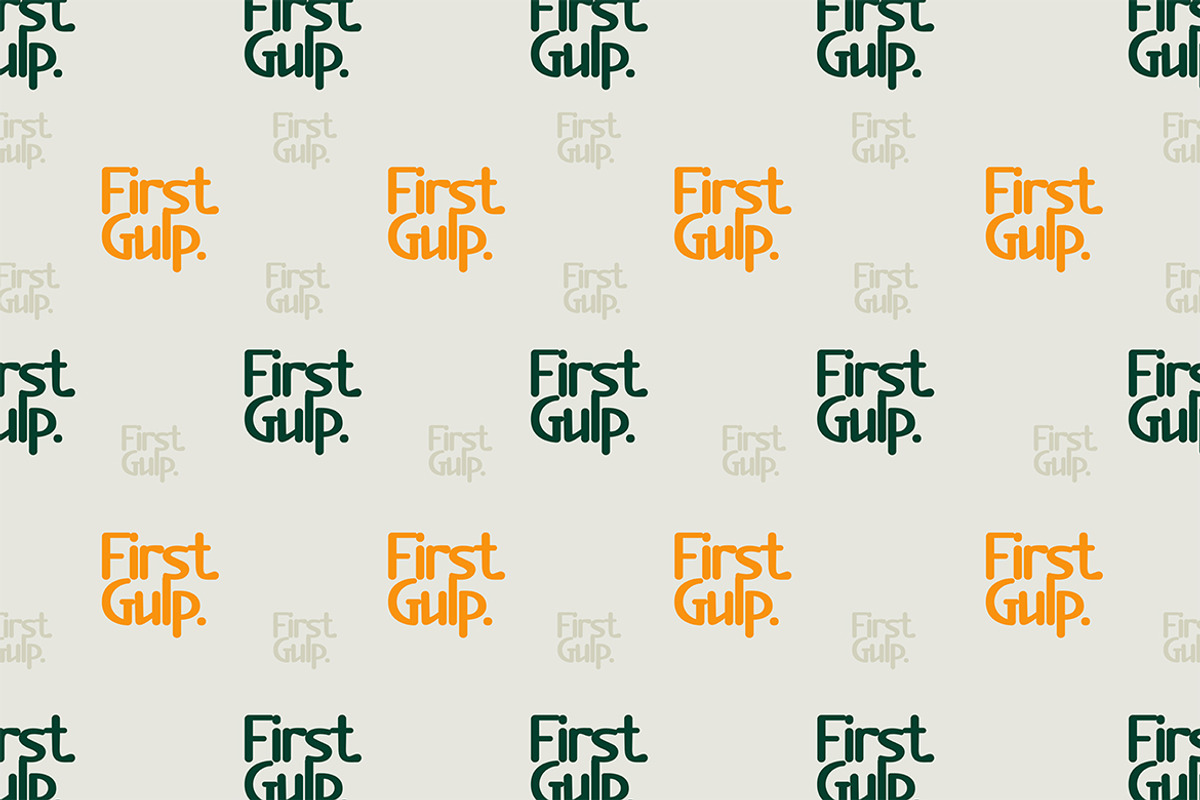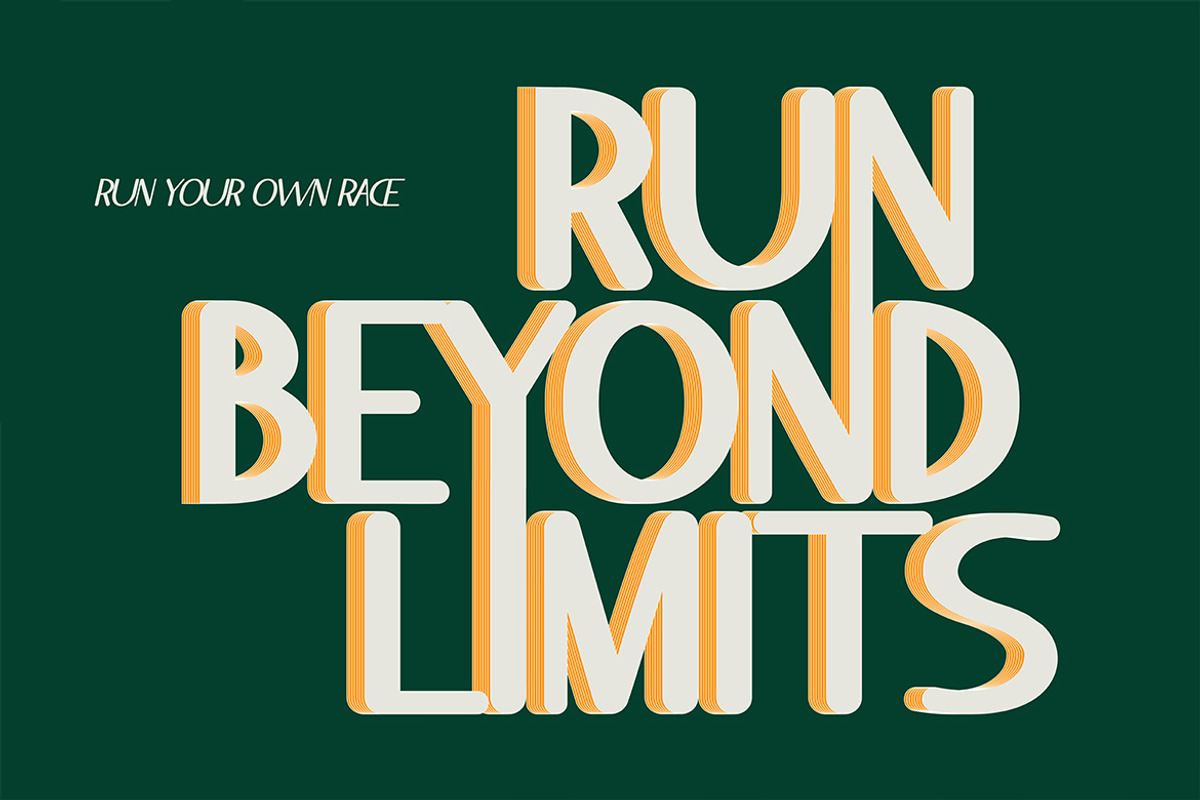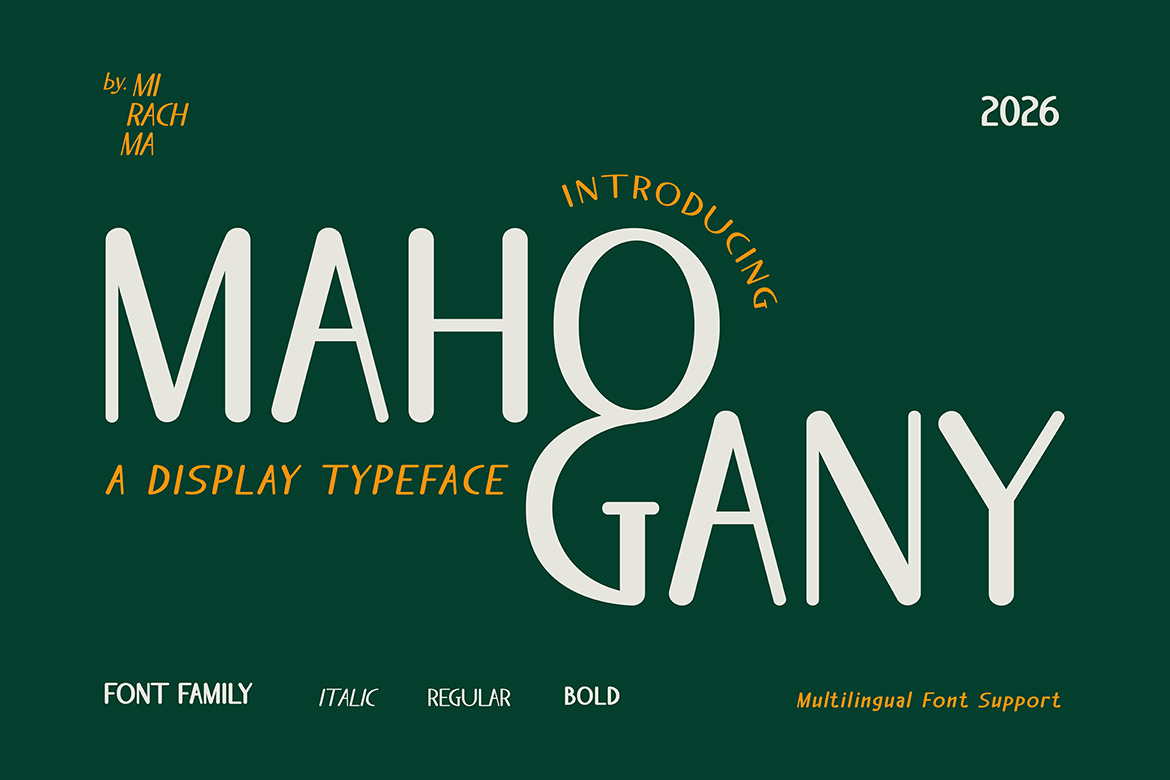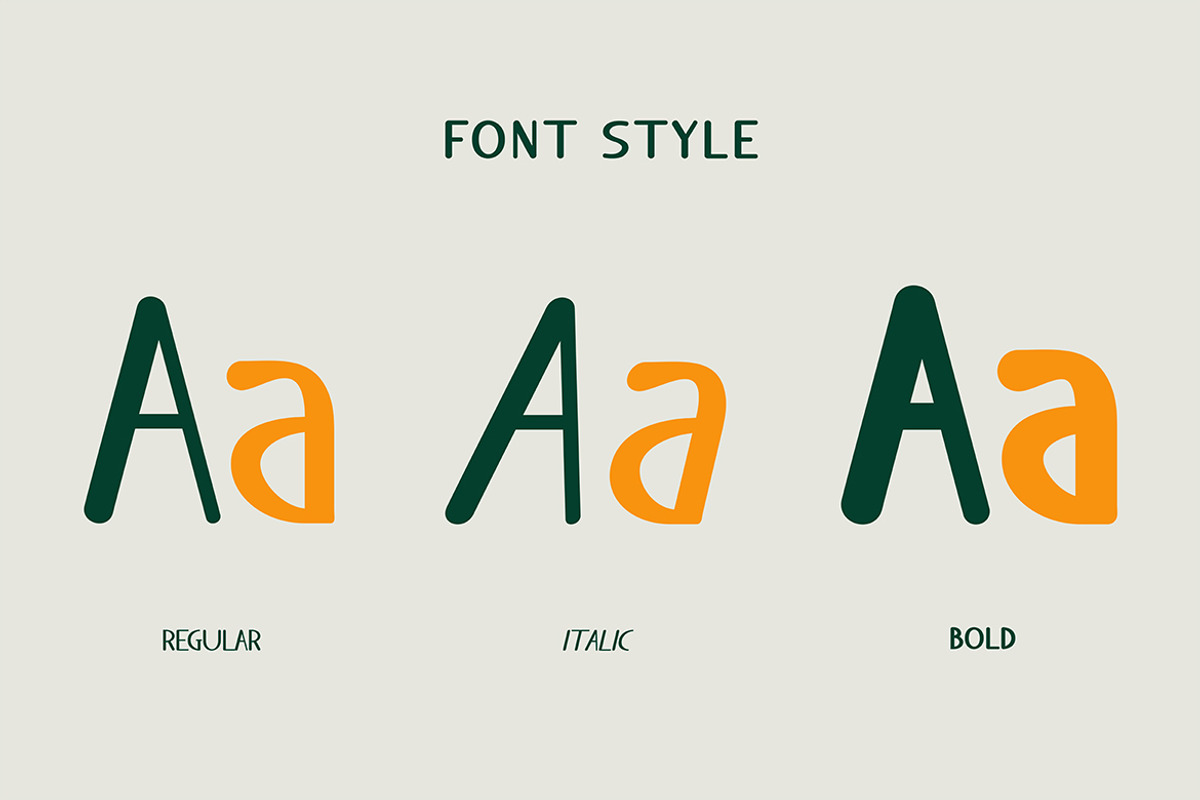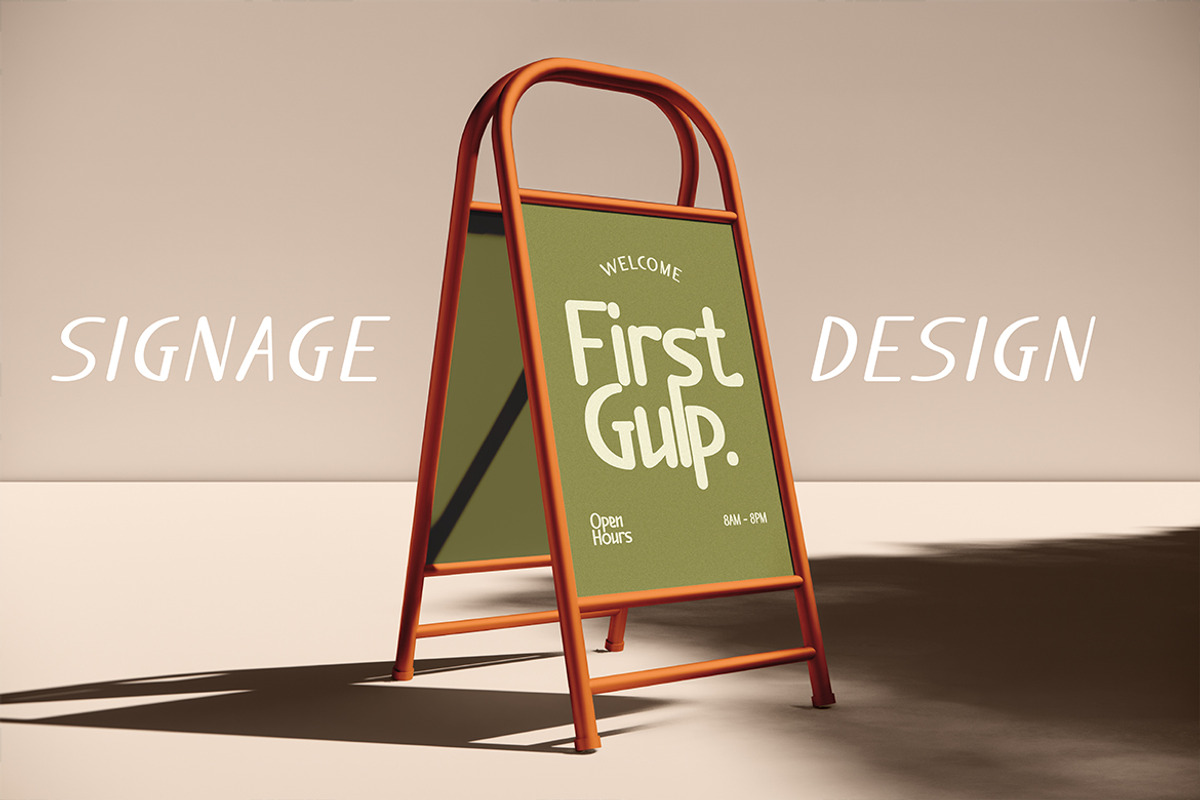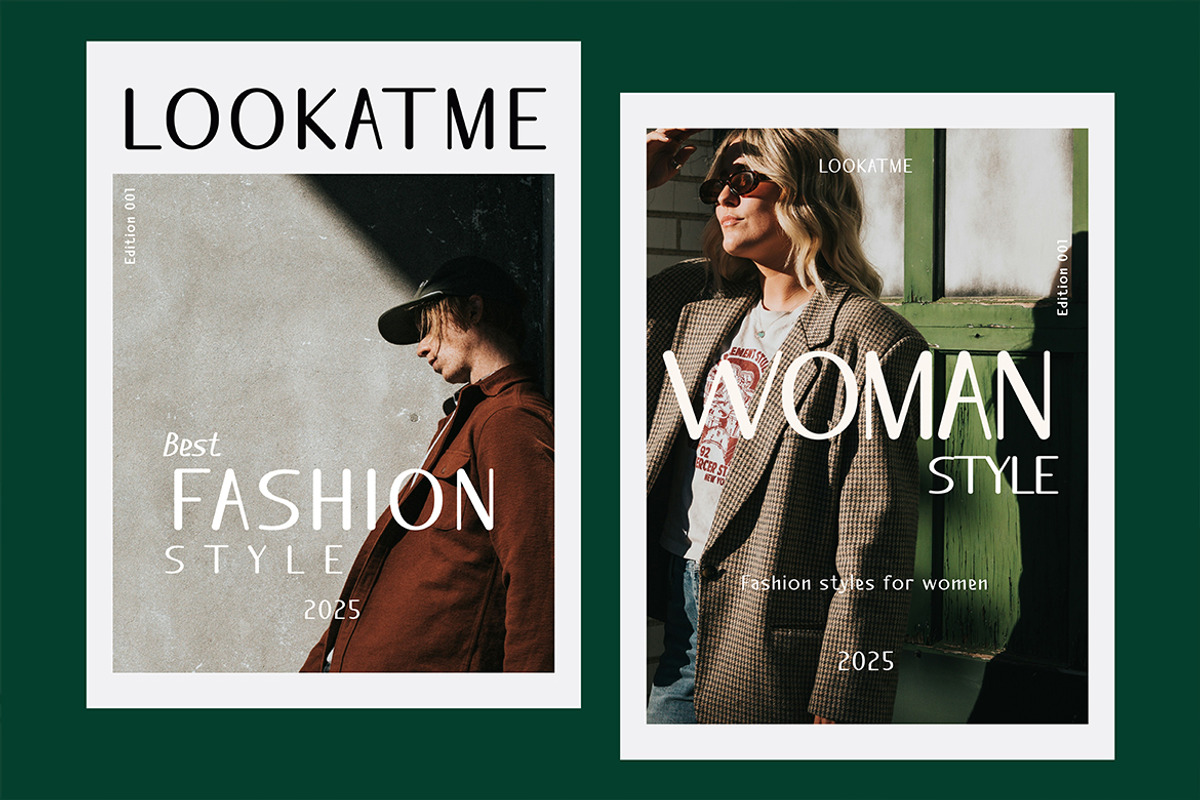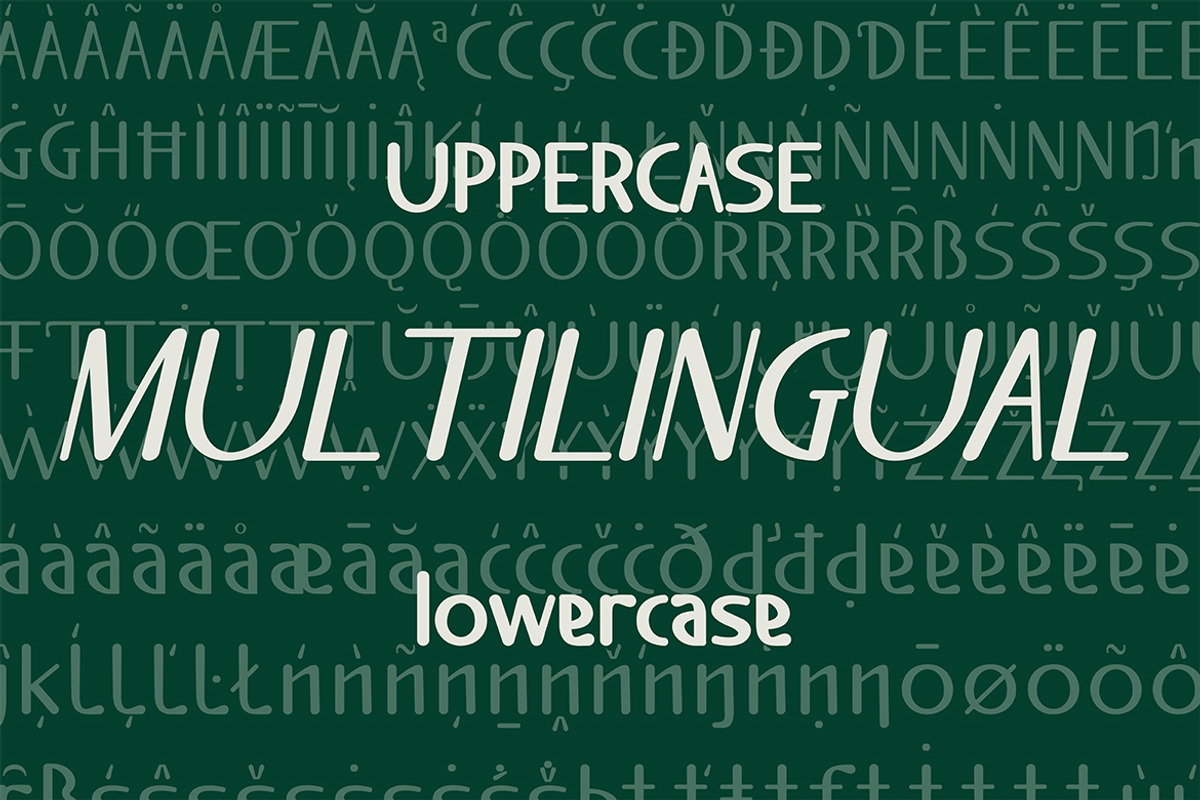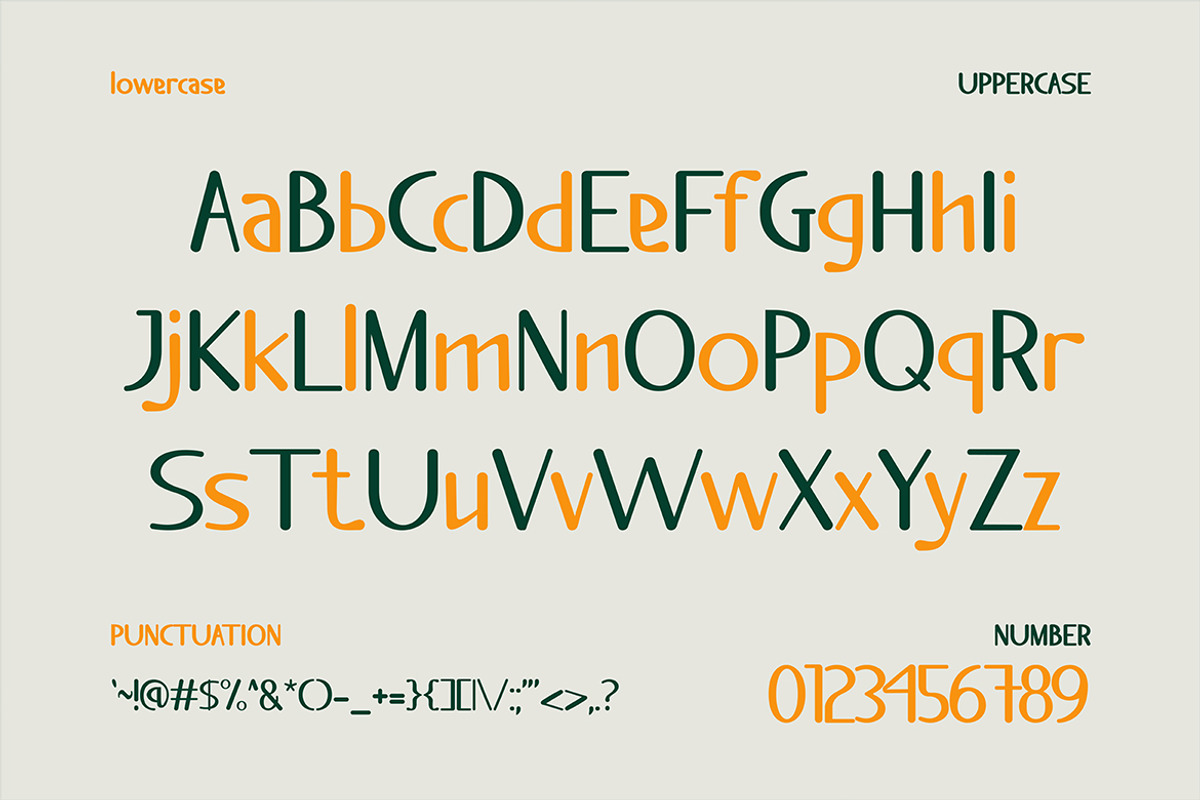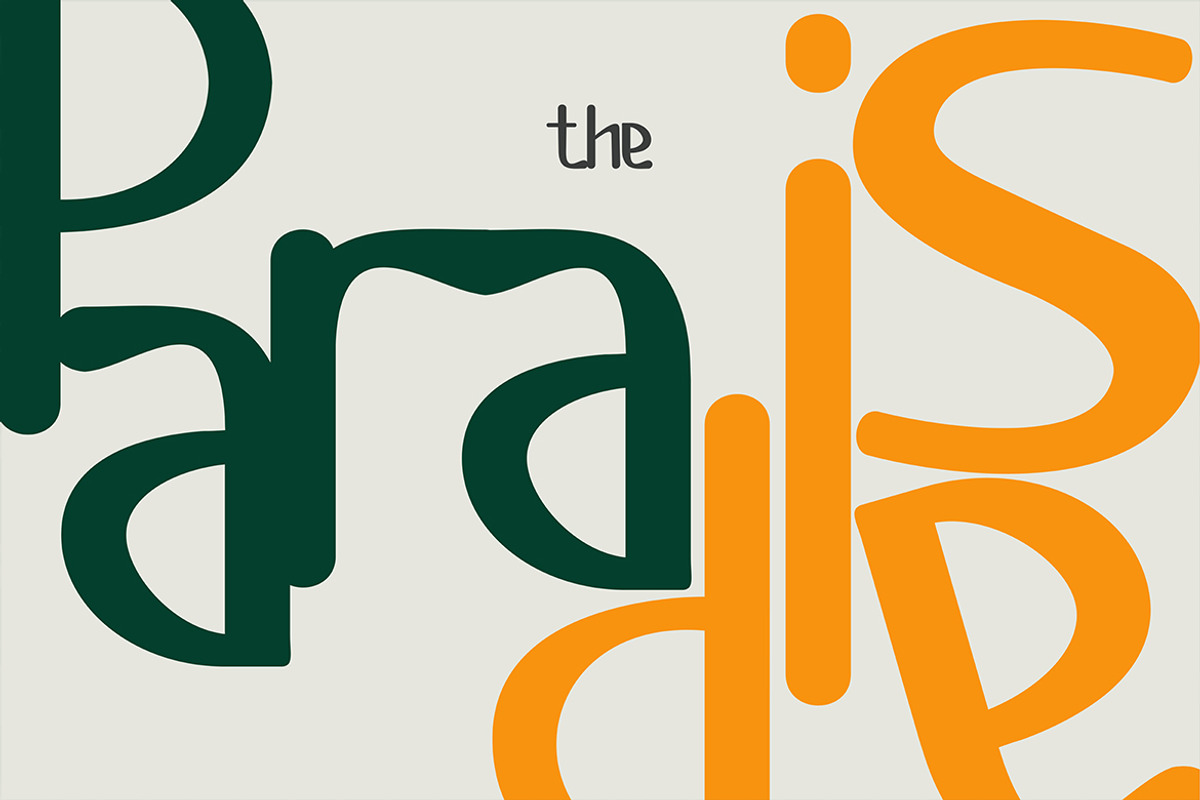
Mahogany - Display Font
MAHOGANY is a font inspired by beauty, elegance, luxury, and strength. MAHOGANY is a display typeface that can be used for titles, logos, and posters to attract attention and create a strong visual impact. However, this font looks simple and classic, so you can use it for various other visual purposes.
- Font Family (Regular, Bold, Italic)
- Multilingual Font Support
- Uppercase & Lowercase Alphabets